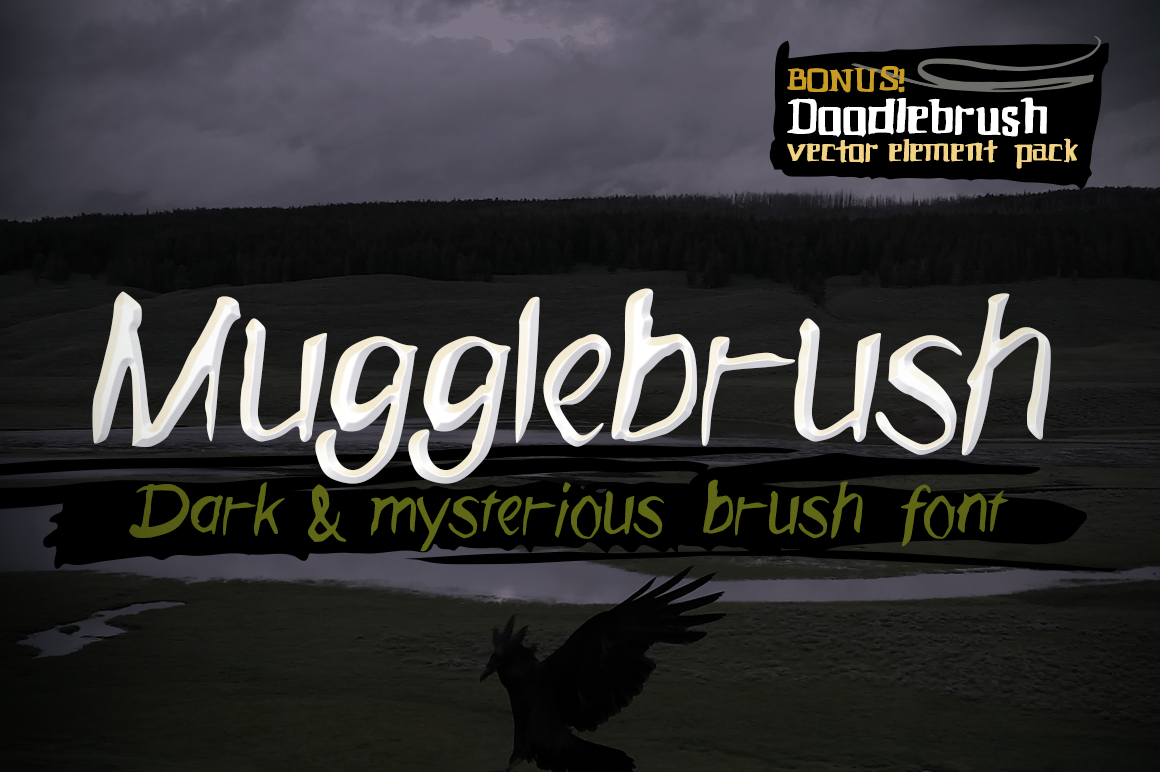
Mugglebrush hand-brushed font
Inspired by the magical imagination and mysterious adventure, Mugglebrush is a hand-brushed, rough font with a whimsical fun flourish. It's ready to add a spell of spectacular to apparel, invitations, comics, journals, logotype, and whatever else your wild imagination can whip up. This is in OTF format.